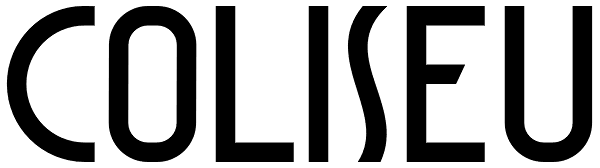
Coliseu
Coliseu is a gorgeous, all caps Art Deco style font. Clean lines, rounded edges and an appealing style make Coliseu a very useful font. It was named after the beautiful Coliseu do Porto - an art deco landmark in that Portuguese city. Coliseu font...